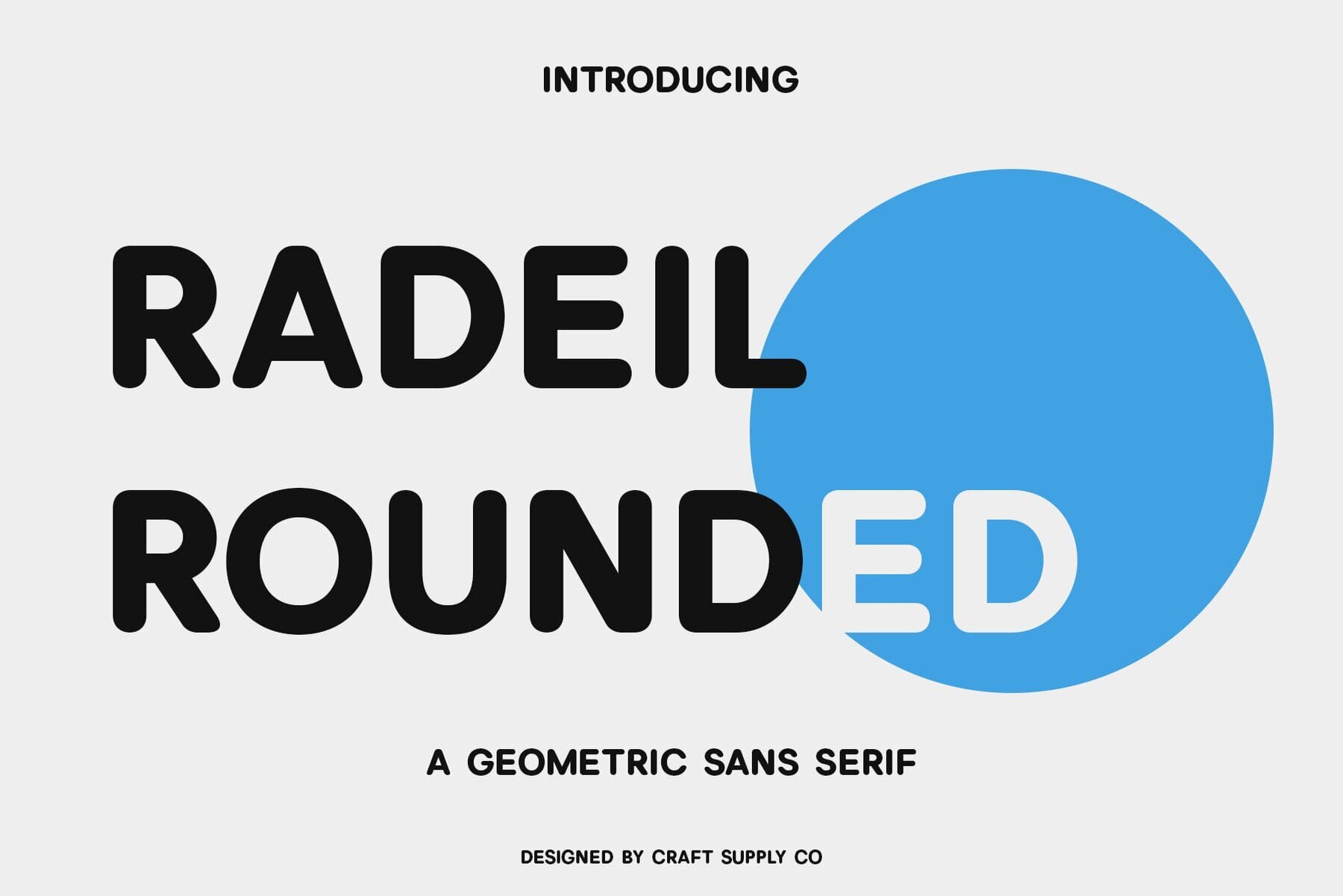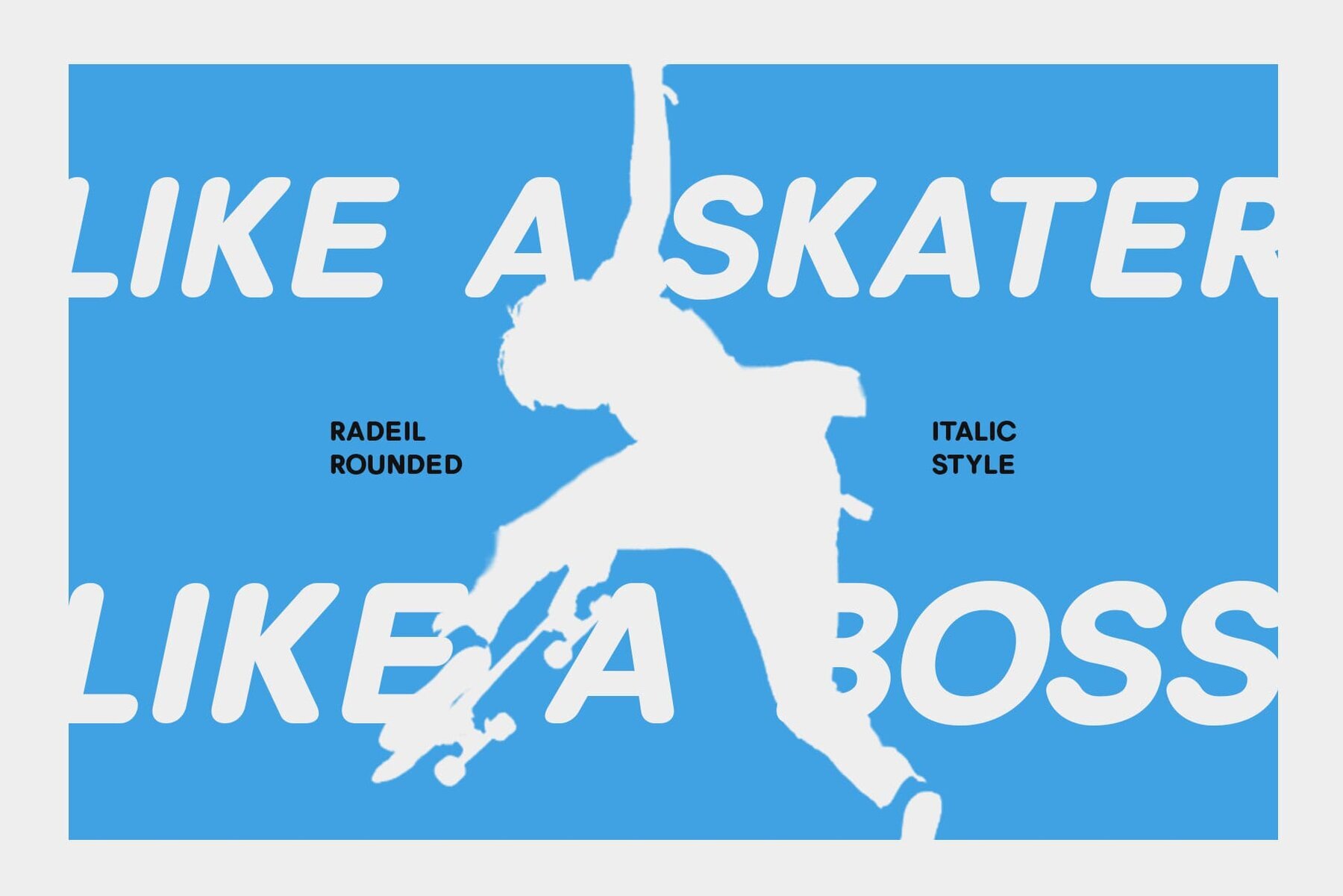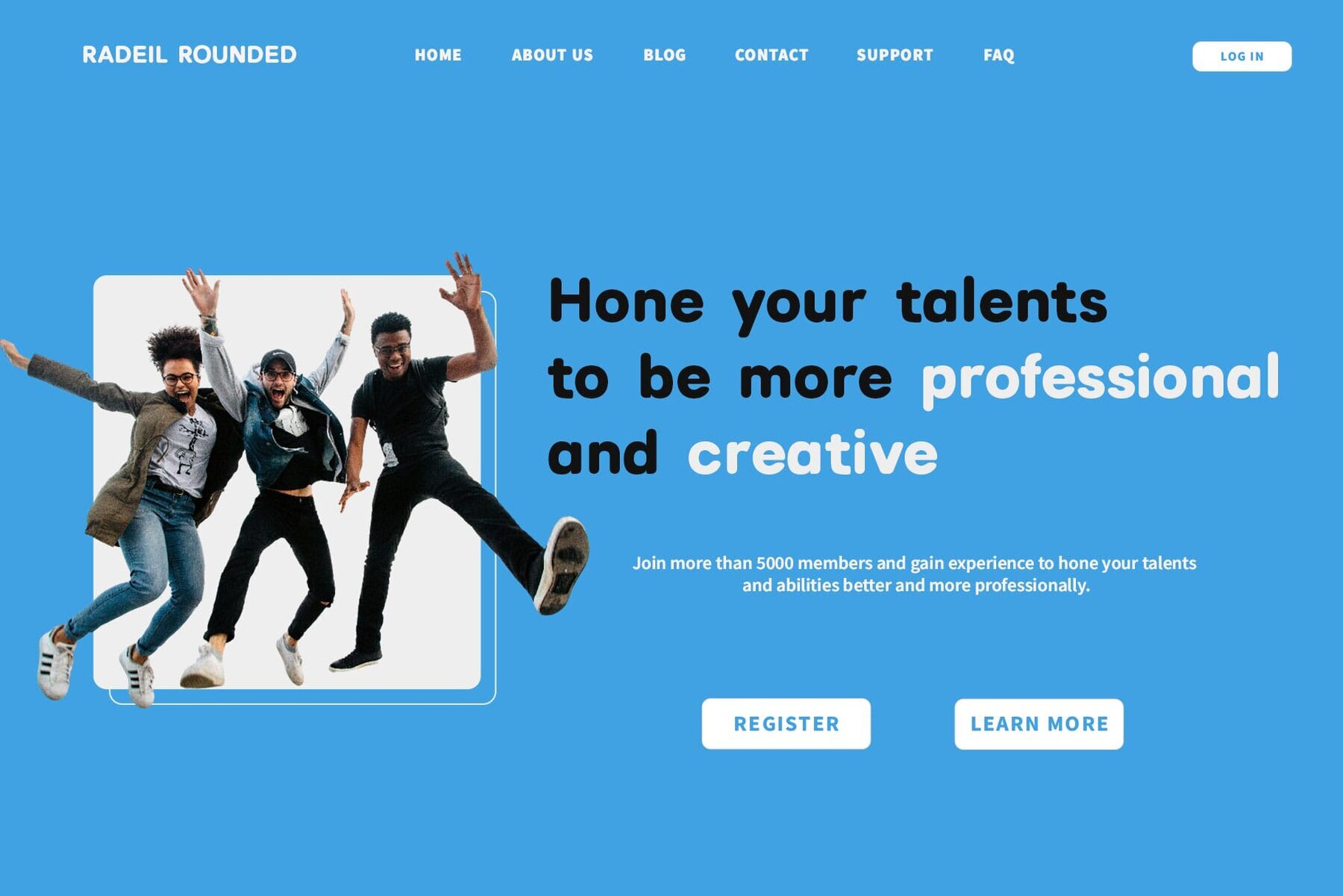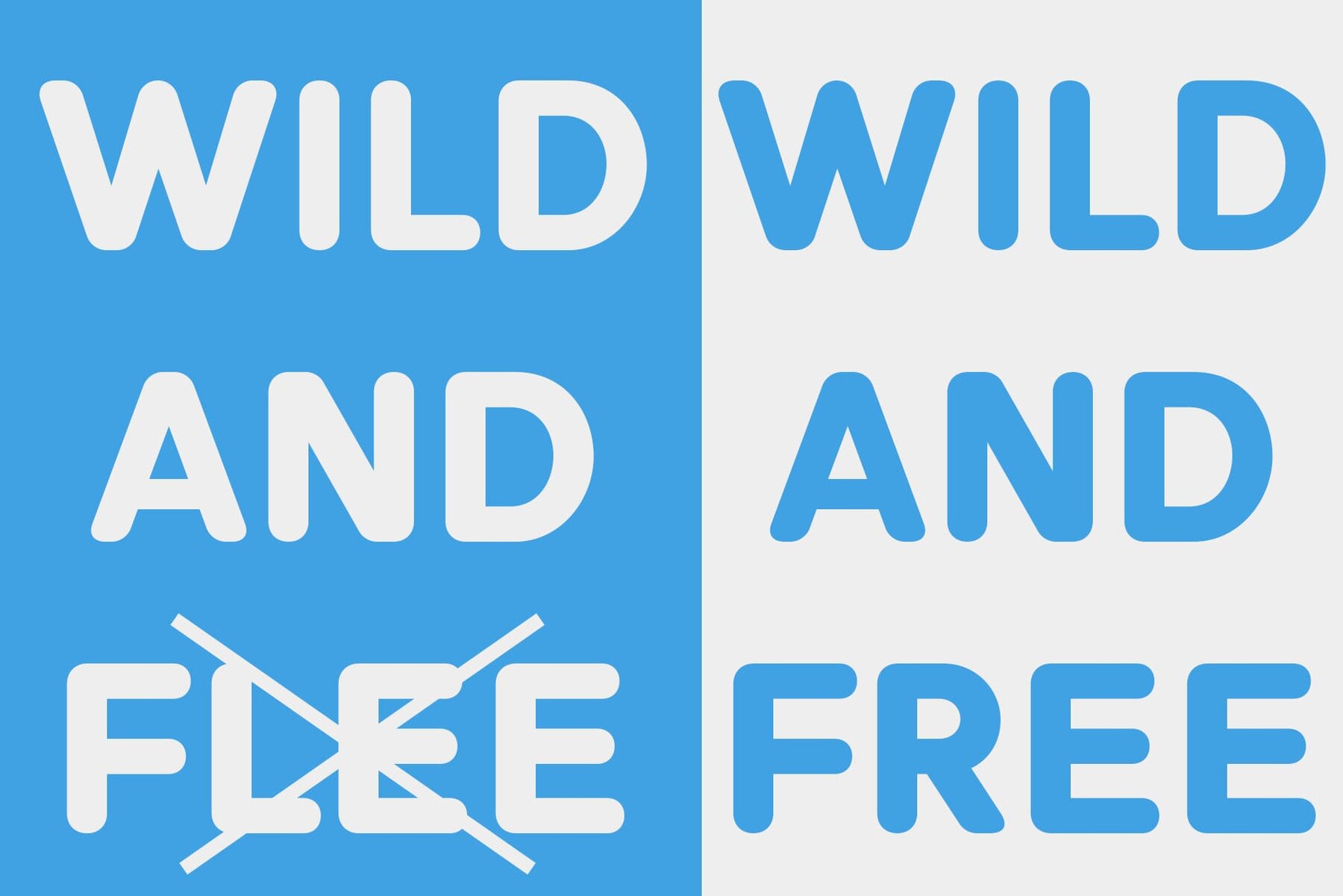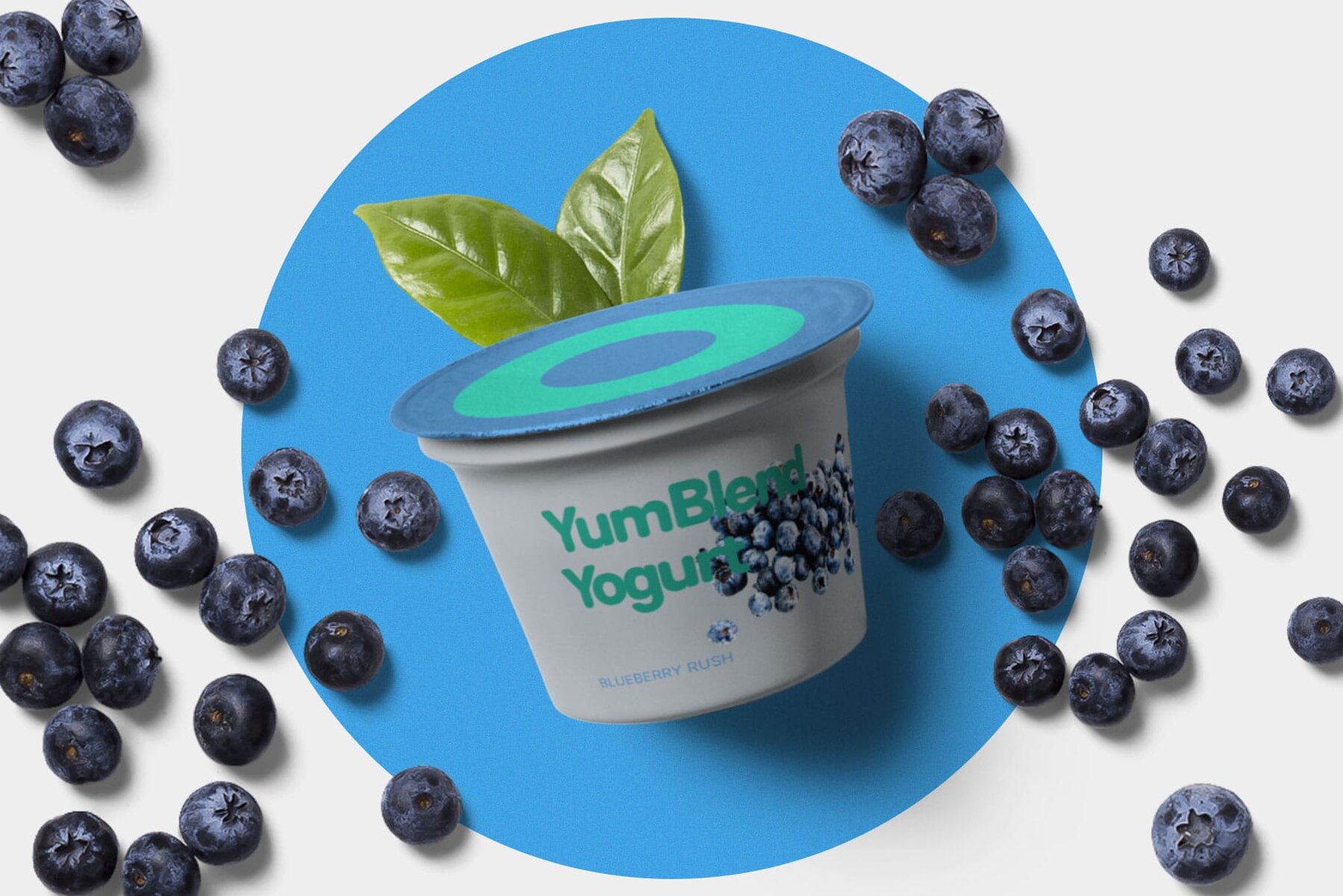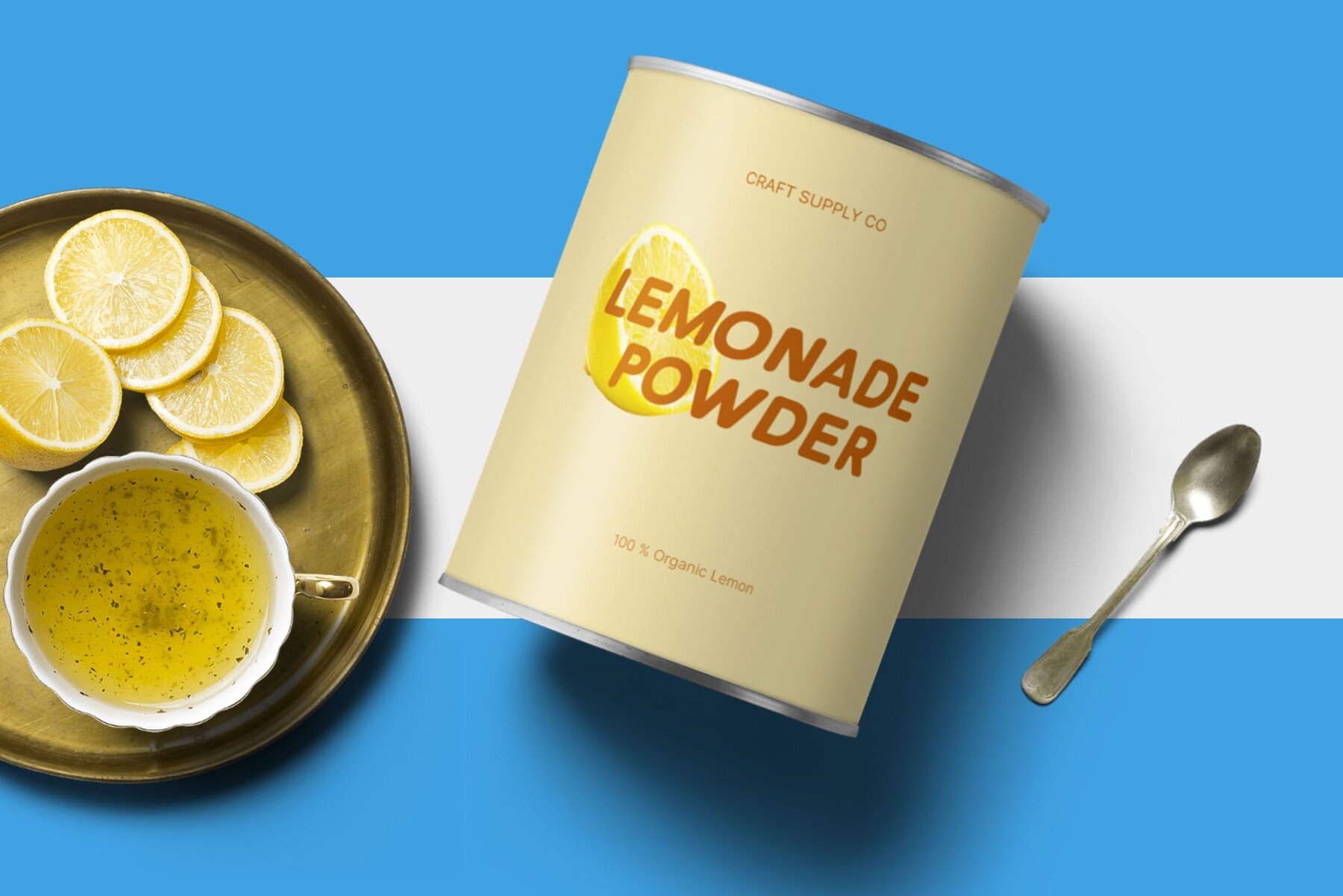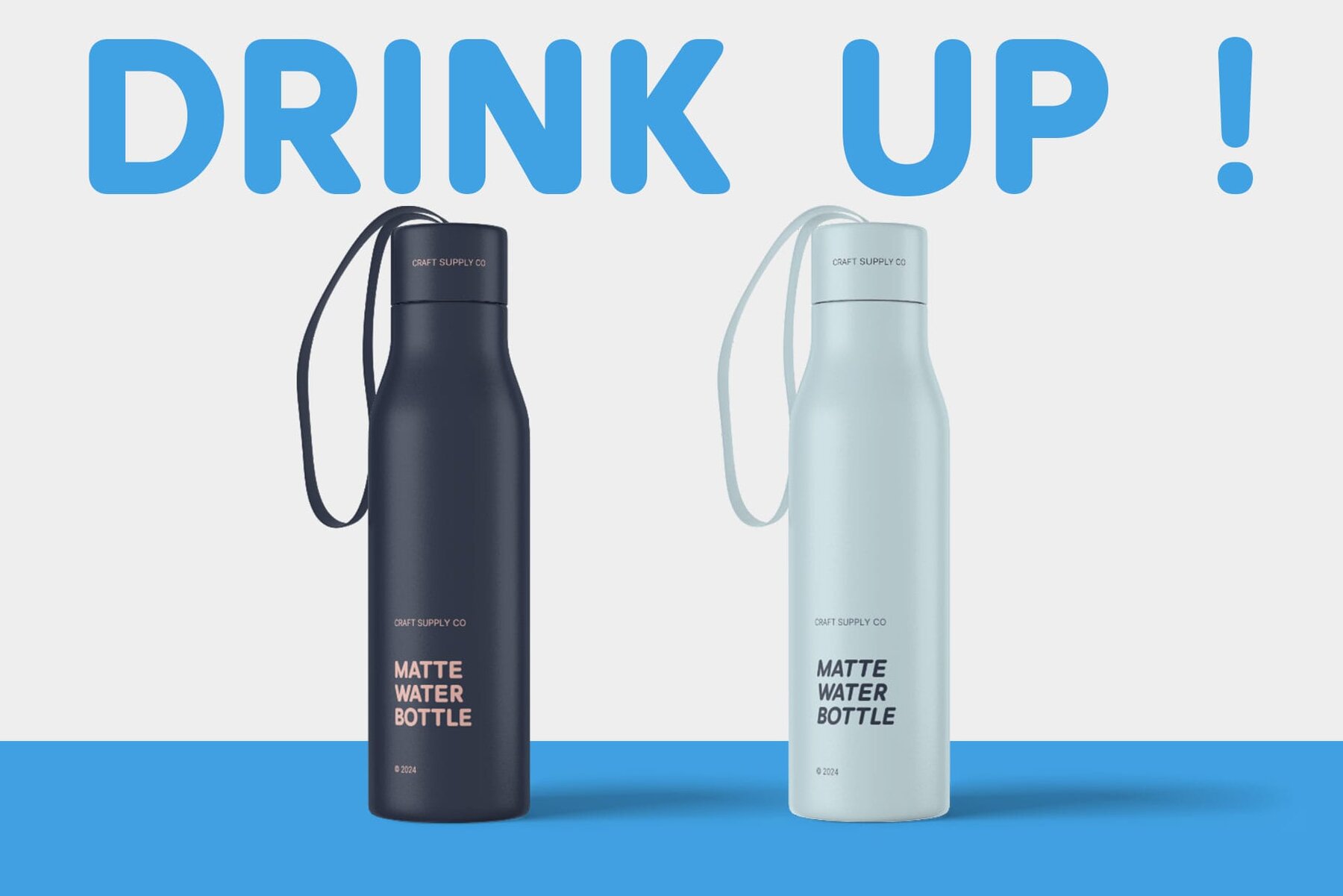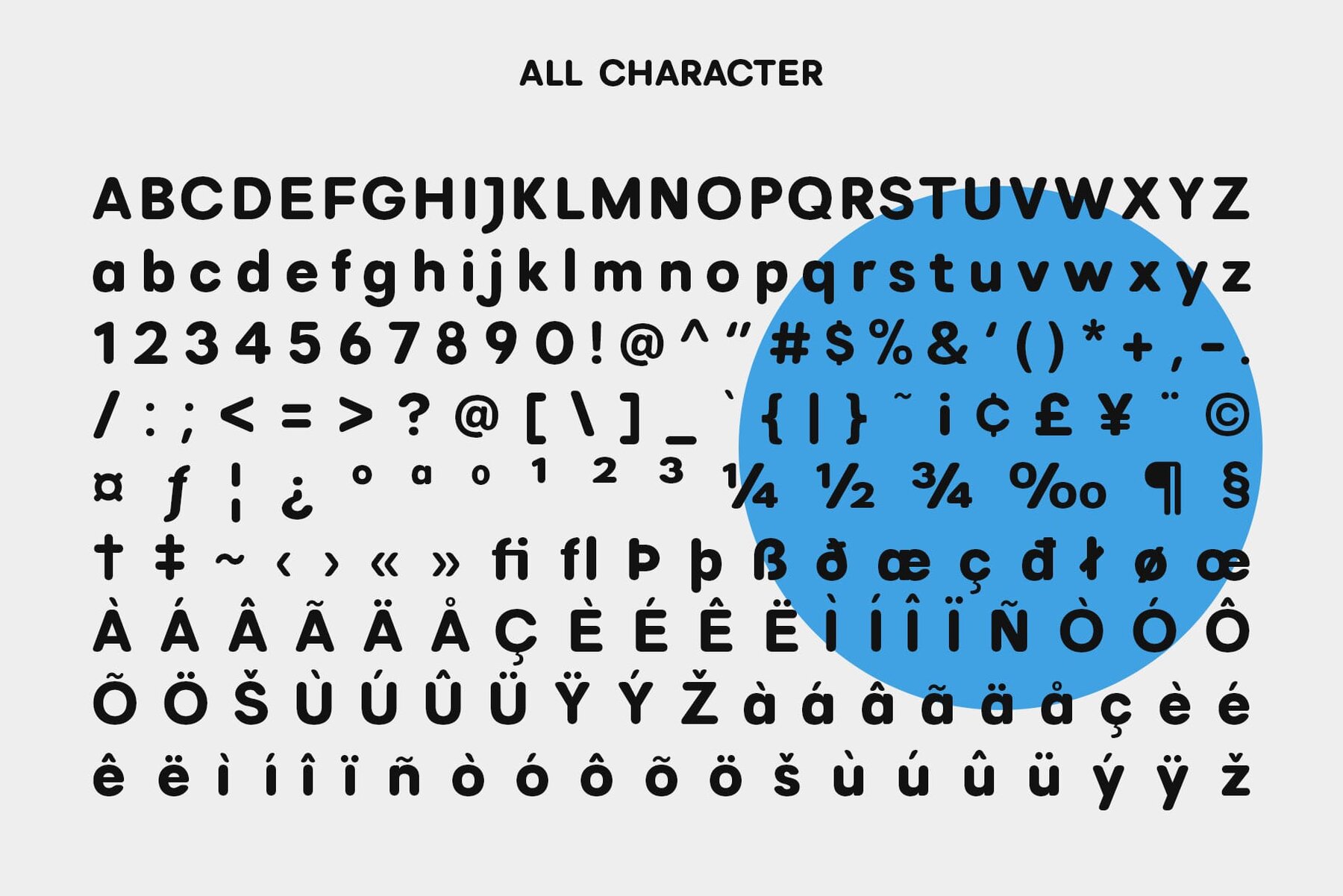
Radeil Rounded Font
This bold, sans-serif font features geometric shapes and clean lines, resulting in a modern and minimalistic design. Its well-balanced letterforms provide excellent readability, making the font suitable for various display purposes, from branding to dynamic web content. The weight and simplicity of this typeface give it a strikingly contemporary look that is both approachable and commanding.